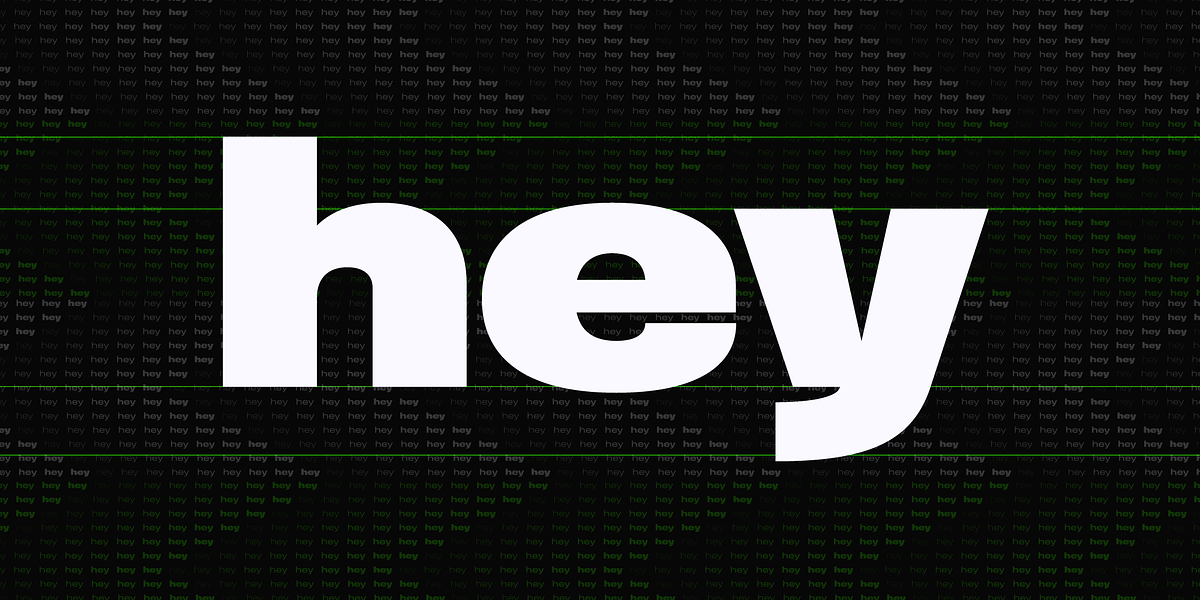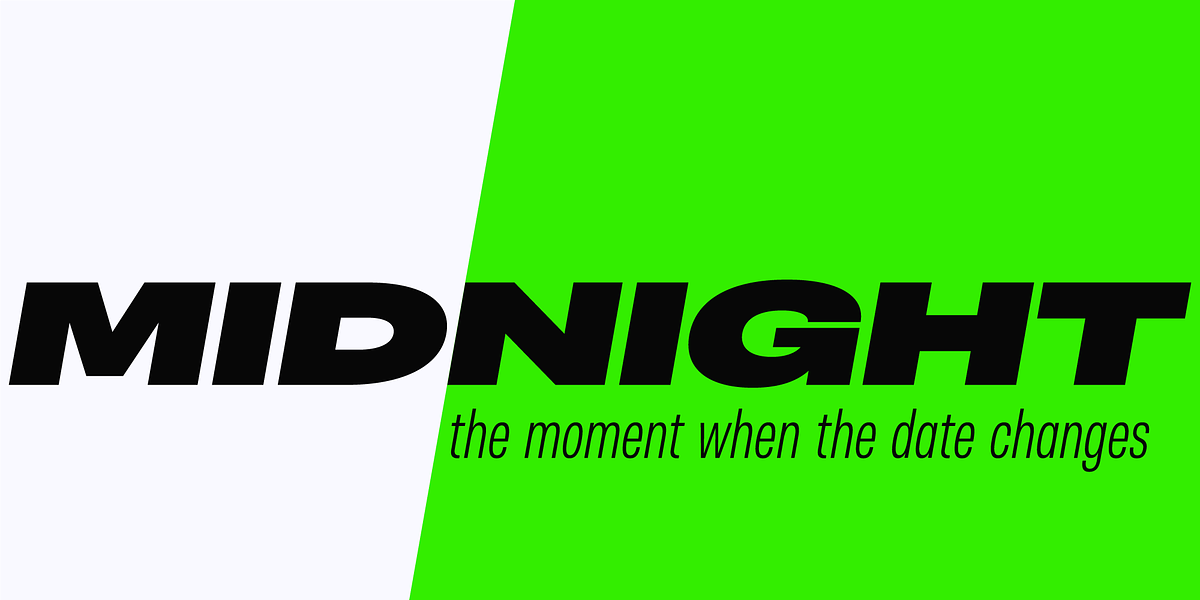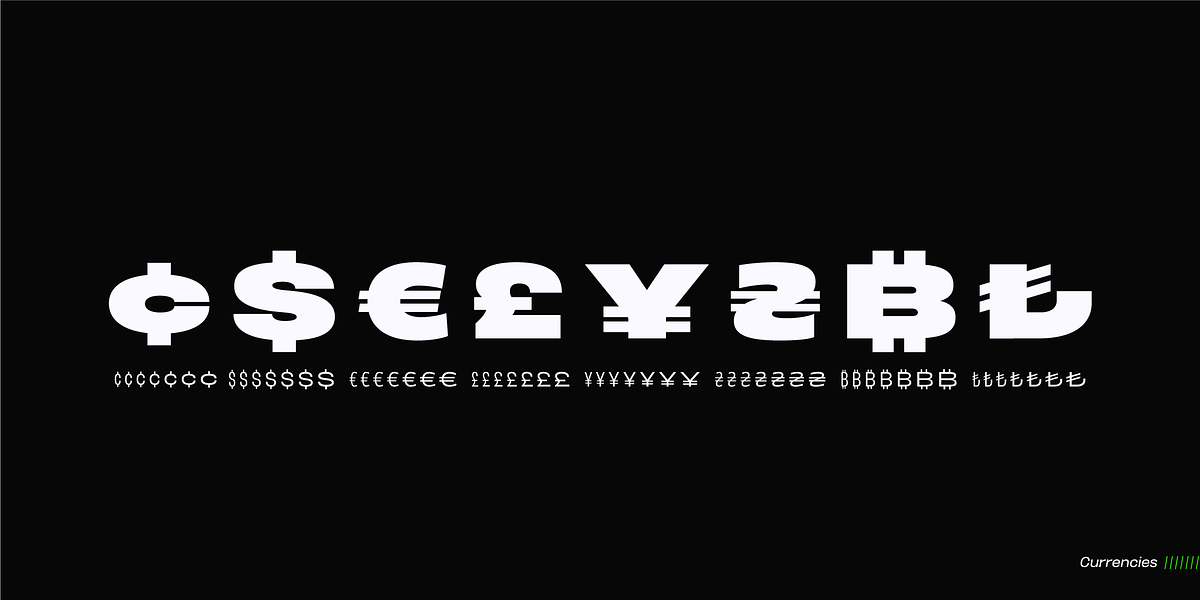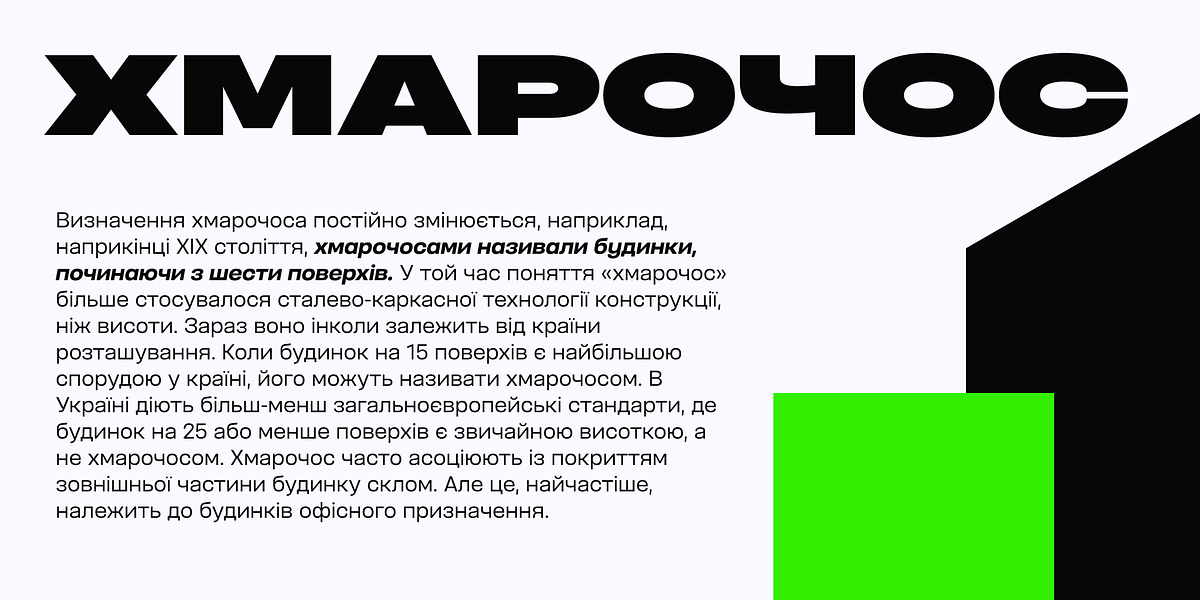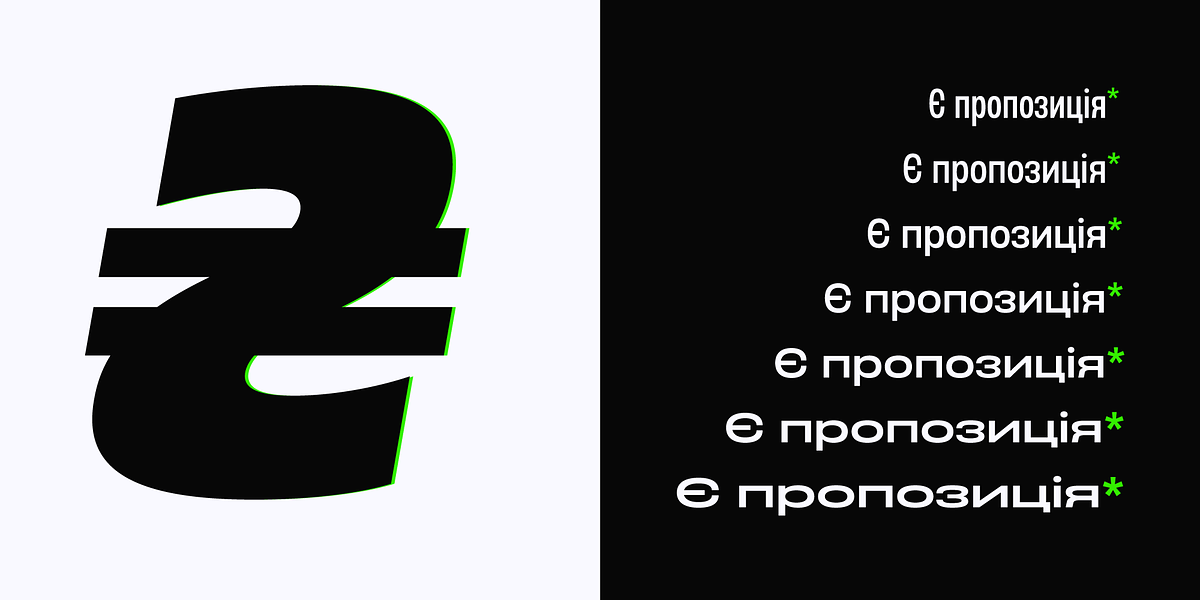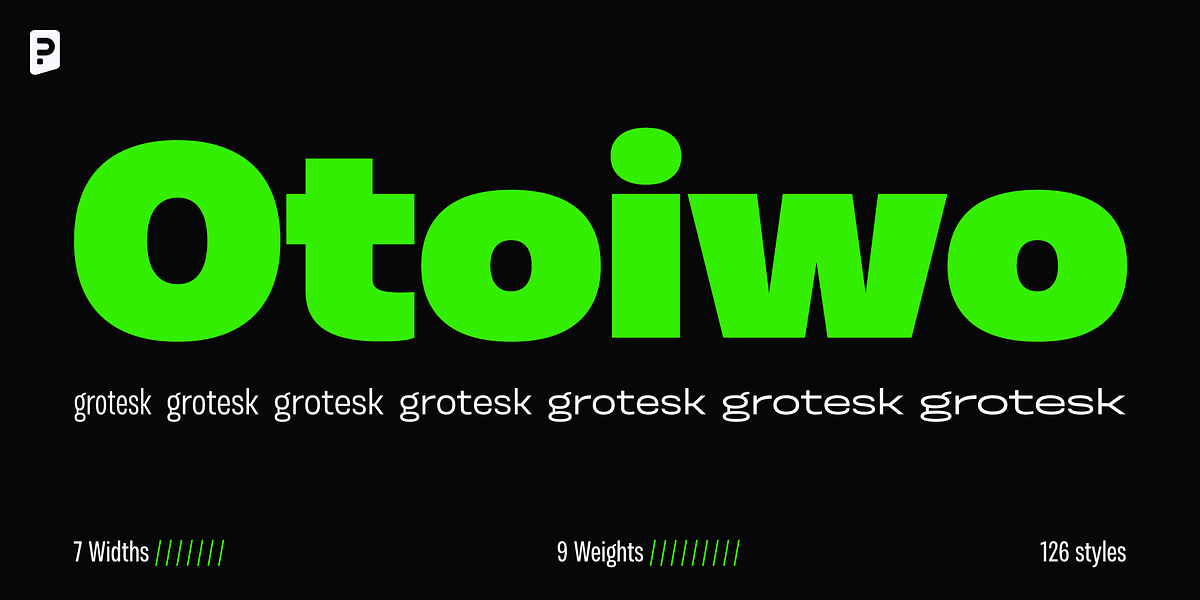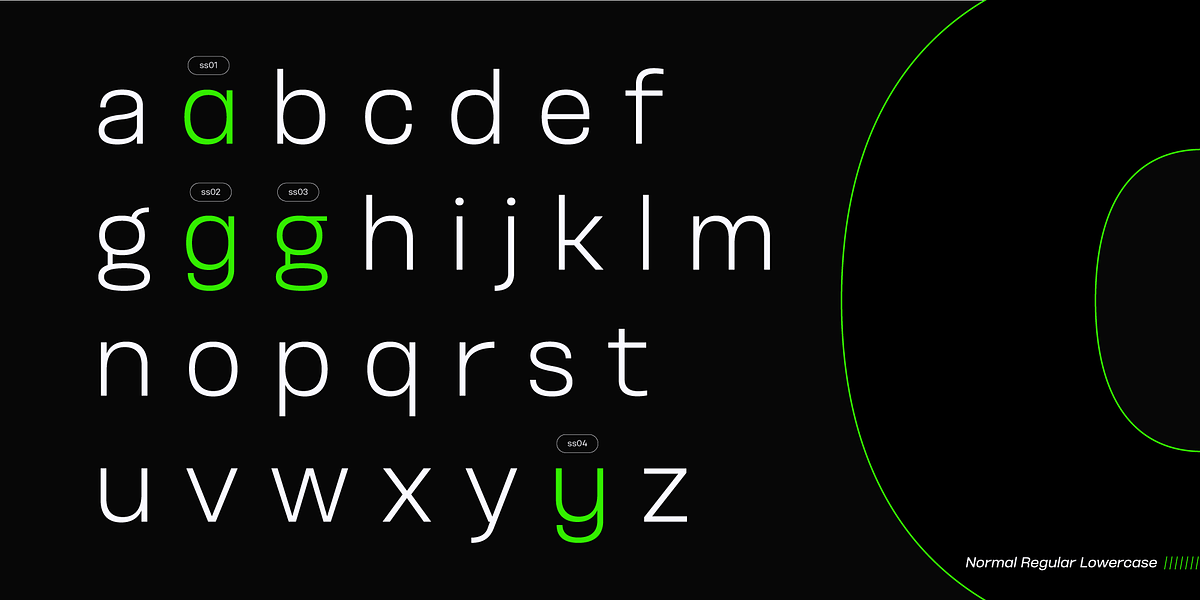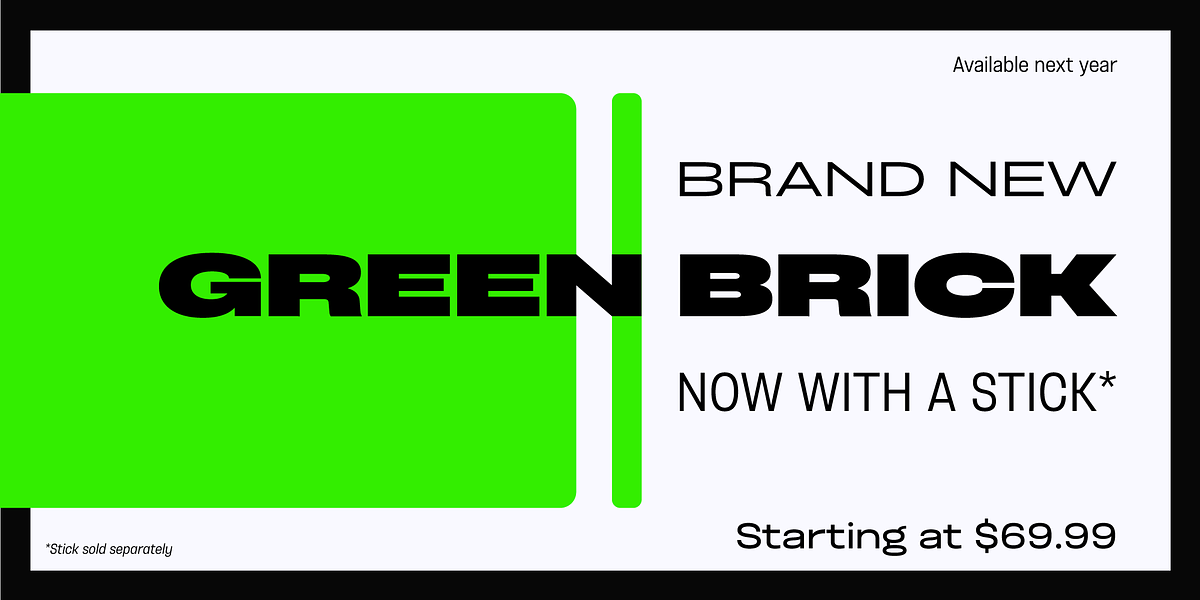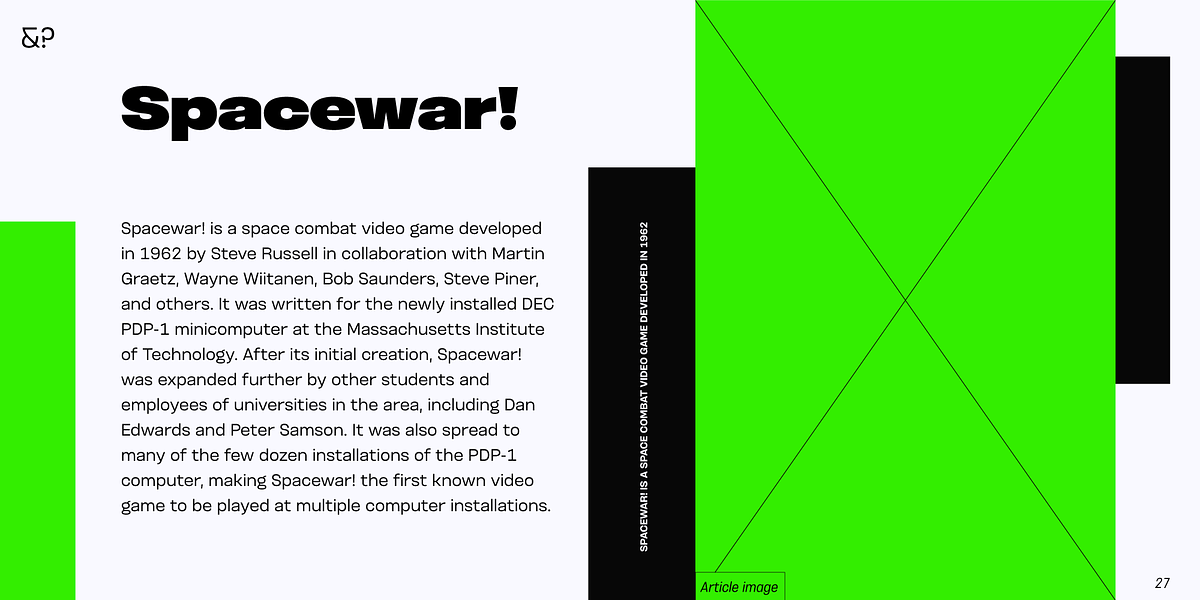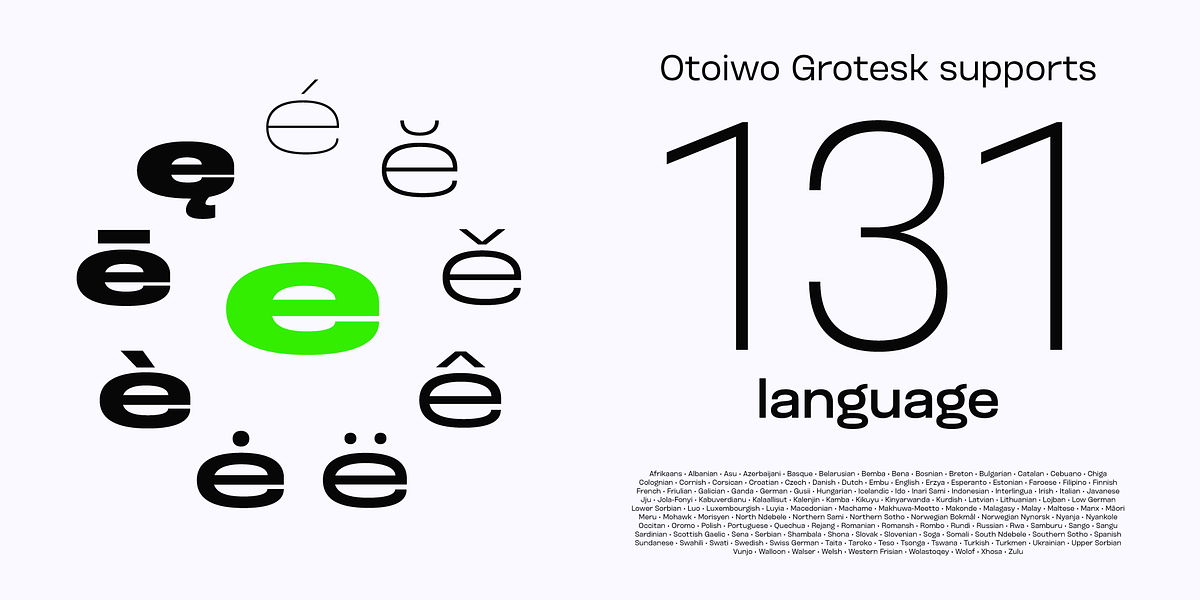
Otoiwo Grotesk Wide
Otoiwo Grotesk is a versatile sans-serif typeface with a geometric design and a closed aperture. It boasts an impressive 126 styles, spanning 7 widths and 9 weights, including italic versions for each. The font's personality ranges from neutral in narrower widths to more flavorful and expressive in wider widths like Compressed and Ultra Wide. With rich language support encompassing Cyrillic and 131 languages overall, Otoiwo Grotesk is a strong contender for brands aiming for international reach.